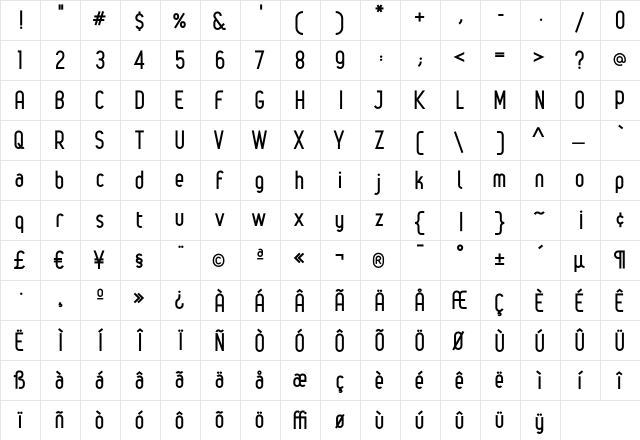
Leger Bold
Design Context for Leger Typeface
Leger takes a measured approach to typography — its balanced proportions and neutral character make it a reliable workhorse for both digital and print work. Its bold stroke weight gives it real presence on the page.